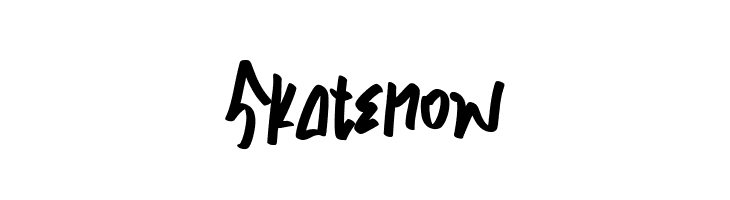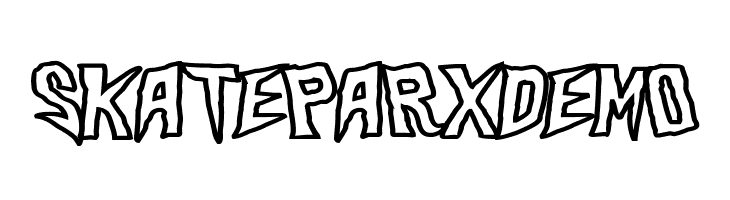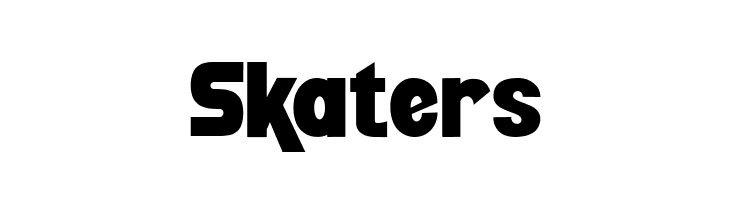
( Omegaville - B.J. Winzer )
A bold, pixelated font with a retro, edgy style.
An edgy, graffiti-inspired font with sharp angles and dynamic strokes.
( Fonts by weknow - Wino S Kadir )
A playful, bubble-like font with a retro vibe and consistent boldness.
A playful, bubble-like font with rounded, bold characters.
( Fonts by Manuel Viergutz - Typo Graphic Design - www.typographicdesign.de )
A bold, eclectic display font with diverse, dynamic letterforms and a rebellious aesthetic.
( Fonts by NihStudio )
A bold, graffiti-inspired font with dynamic, angular letterforms.
A bold, brush-style font with a dynamic, handwritten appearance.
A bold, dynamic font with thick, angular strokes and a slanted orientation.
( Fonts by share font )
A playful, hand-drawn font with bold, irregular letterforms and a street art vibe.